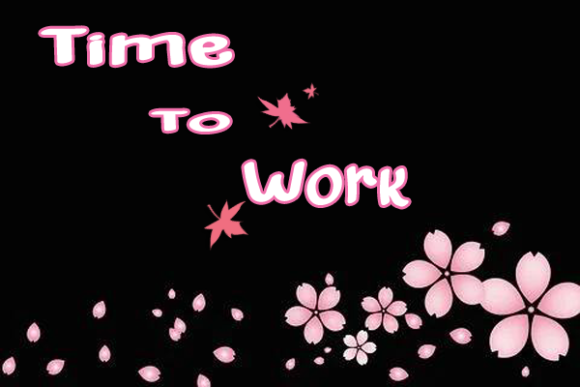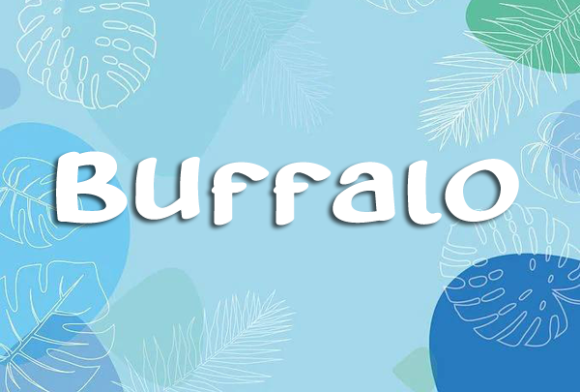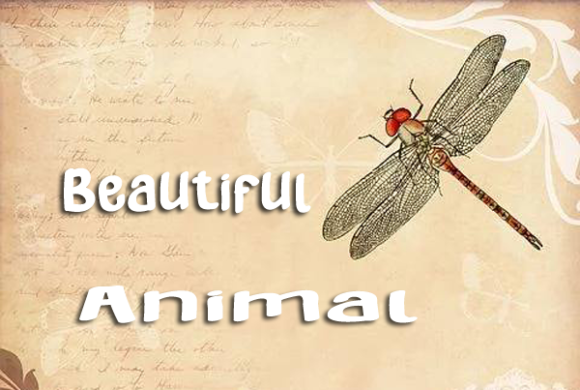
Introducing Dimensions Font: The Perfect Choice for Designers and Crafters
In the world of typography, a font can make all the difference in the success of a design project. A well-chosen font can elevate your work, convey your message effectively, and leave a lasting impression on your audience. If you’re a designer or crafter looking for a font that embodies charm and authenticity, look no further than Dimensions Font. In this article, we’ll take a closer look at Dimensions Font, its features, and why it’s a great choice for words that need to stand above the background.
What is Dimensions Font?
Dimensions Font is a well-rounded and fun display font that is designed to make a statement. Its unique blend of elegance and playfulness makes it perfect for a wide range of design projects, from branding and advertising to packaging and crafting. With its clean lines, smooth curves, and balanced proportions, Dimensions Font is a versatile font that can be used in various contexts, from digital media to print materials.
Key Features of Dimensions Font
So, what makes Dimensions Font stand out from the crowd? Here are some of its key features:
- Unique Character Set: Dimensions Font comes with a comprehensive character set that includes uppercase and lowercase letters, numbers, punctuation marks, and special characters.
- Clean and Modern Design: The font features clean lines, smooth curves, and balanced proportions, making it perfect for modern design projects.
- Highly Legible: Dimensions Font is designed to be highly legible, even at small sizes, making it perfect for body text and headlines.
- Support for Multiple Languages: The font supports multiple languages, including English, Spanish, French, German, and many more.
Why Choose Dimensions Font?
So, why should you choose Dimensions Font for your next design project? Here are some compelling reasons:
- Embodied Charm and Authenticity: Dimensions Font has a unique charm and authenticity that sets it apart from other fonts.
- Great for Display Text: The font is perfect for display text, such as headlines, titles, and captions, where you want to make a statement.
- Versatile: Dimensions Font can be used in various contexts, from digital media to print materials, making it a versatile addition to your font library.
- Easily Customizable: The font is easily customizable, allowing you to adjust its size, color, and style to suit your design needs.
Design and Crafting Applications
Dimensions Font is perfect for a wide range of design and crafting applications, including:
- Branding and Advertising: Use Dimensions Font to create eye-catching logos, ads, and marketing materials that grab attention.
- Packaging Design: The font is perfect for packaging design, where you want to make a statement and stand out on store shelves.
- Crafting and Scrapbooking: Dimensions Font is a great choice for crafters and scrapbookers who want to add a personal touch to their projects.
- Digital Media: Use the font to create engaging digital content, such as social media graphics, blog posts, and website headers.
In conclusion, Dimensions Font is a well-rounded and fun display font that embodies charm and authenticity. Its unique features, versatility, and ease of use make it a great choice for designers and crafters looking for a font that can help them stand out from the crowd. Whether you’re working on a branding project, packaging design, or crafting and scrapbooking, Dimensions Font is a great choice for words that need to stand above the background.